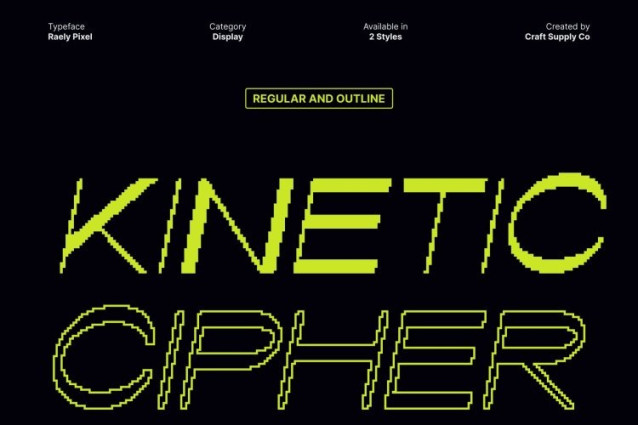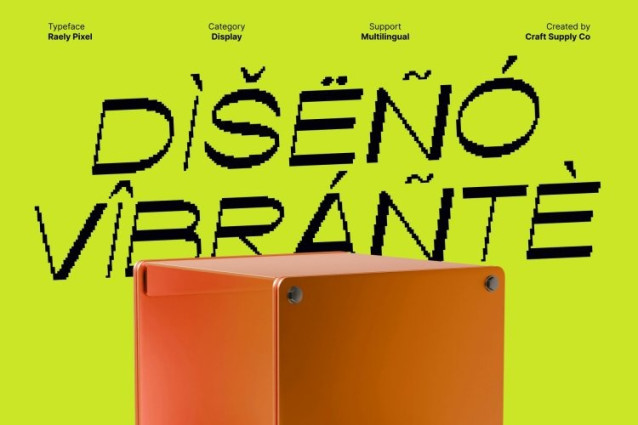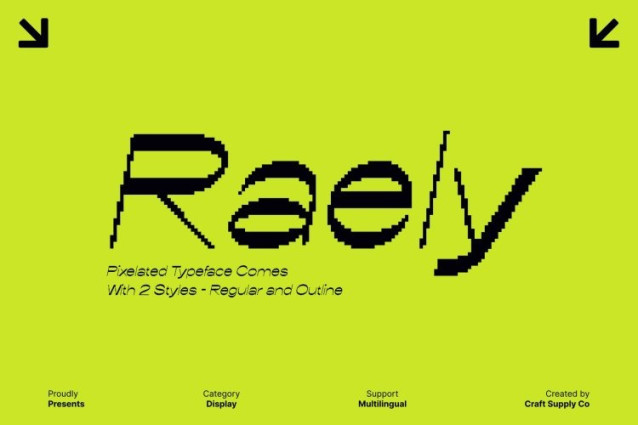
Raely Pixel Font
Raely Pixel Font This is a dynamic modern sans serif display font that merges the charm of pixel art with contemporary design sensibilities. Its clean, structured lines paired with digital-inspired detailing create a playful yet professional aesthetic.
Clean, Modern Shapes for Digital Versatility
With its minimalist sans serif structure, this font offers clarity, readability, and a sleek modern appearance. The carefully designed letterforms provide balance and proportion, making it ideal for headlines, digital posters, or branding projects that demand both style and legibility. Its modern geometric forms give designs a polished, high-tech look without sacrificing personality.
Pixel Texture for Fun and Digital Expression
The pixel effect introduces a creative digital dimension, giving this font a unique pixel-art-inspired aesthetic. This subtle texture enhances the font’s modern design, adding playfulness and visual intrigue. Each character stands out with digital precision, making the typeface perfect for tech-savvy, creative, or retro-inspired projects that want a fun, eye-catching style.
Perfect for Modern Design, Digital Posters, and Branding Projects
This font thrives in creative and contemporary applications, from digital advertising and modern posters to fun branding initiatives. Its combination of clean sans serif forms and pixel-art flair makes it versatile for a range of projects seeking modernity, creativity, and visual distinction.